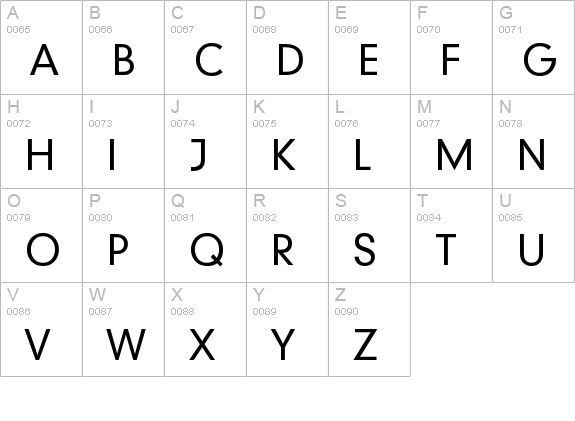
Geometrix Medium Font Details
Geometrix Medium is a balanced, medium-weight variant in the Geometrix typeface family \xE2\x80\x94 well suited to sub-headlines, navigation, and balanced editorial work.
Geometrix Medium font is a modern and sleek typeface that perfectly balances geometric shapes with a touch of elegance. Its clean lines and sharp edges make it ideal for a wide range of design projects, from branding to editorial design. The medium weight of this font gives it a versatile look that can be used for both headings and body text. What's even better is that Geometrix Medium font is available for free download at FontsMarket.com. This means you can easily access this stylish and professional font for your projects without any cost. Don't miss out on the opportunity to enhance your designs with the timeless appeal of Geometrix Medium font.